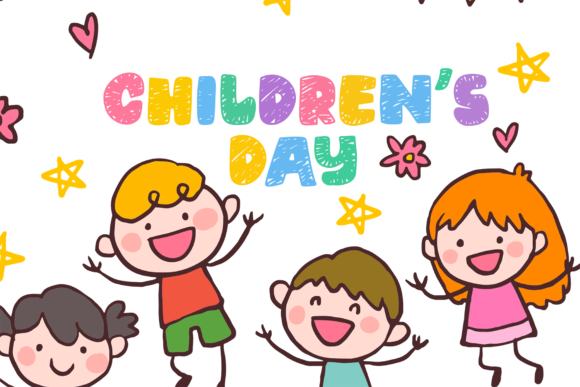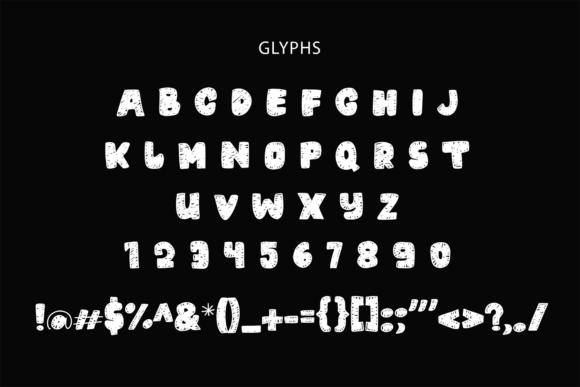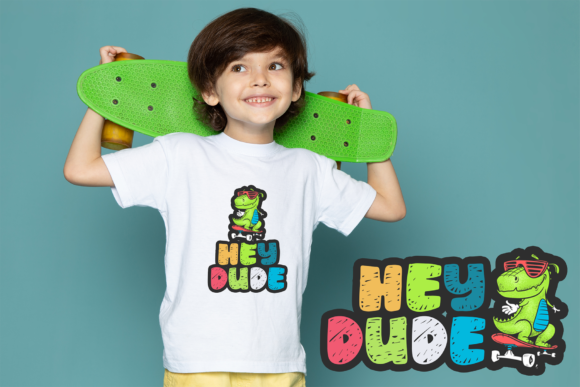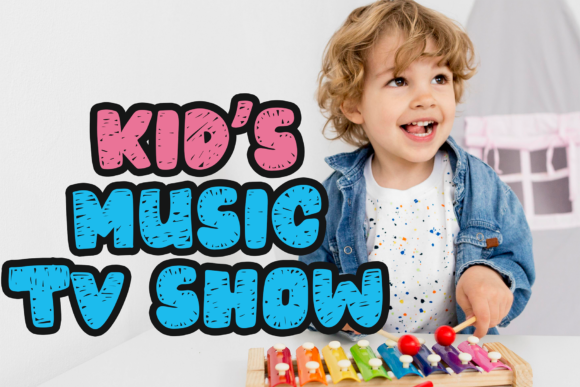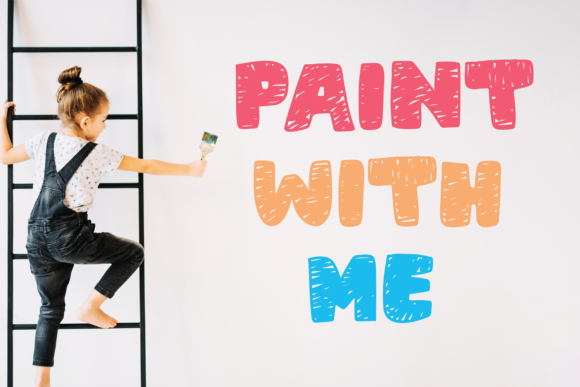
Introducing Chalk Sketch Font: A Bold and Colorful Display Font
Are you looking for a font that can add a touch of creativity and friendliness to your designs? Look no further than Chalk Sketch Font! This bold and colorful display font is perfect for designers and crafters who want to make their ideas stand out. In this article, we’ll explore the features and benefits of Chalk Sketch Font, and how it can be used in a variety of contexts.
What is Chalk Sketch Font?
Chalk Sketch Font is a unique and eye-catching display font that is designed to mimic the look of chalk sketches. Its bold and colorful appearance makes it perfect for headlines, titles, and other design elements that need to grab attention. The font is incredibly versatile, and can be used in a wide range of contexts, from children’s designs to marketing materials.
Key Features of Chalk Sketch Font
- Bold and Colorful: Chalk Sketch Font is a bold and colorful display font that is sure to grab attention. Its vibrant colors and chunky lines make it perfect for designs that need to stand out.
- Friendly Feel: The font has a friendly feel that makes it perfect for designs that need to convey a sense of approachability and warmth. It’s ideal for children’s designs, educational materials, and marketing materials.
- Versatile: Chalk Sketch Font is incredibly versatile, and can be used in a wide range of contexts. It’s perfect for headlines, titles, and other design elements that need to grab attention.
Benefits of Using Chalk Sketch Font
There are many benefits to using Chalk Sketch Font in your designs. Here are just a few:
- Adds Creativity: Chalk Sketch Font adds a touch of creativity and whimsy to your designs. Its bold and colorful appearance makes it perfect for designs that need to stand out.
- Conveys Friendliness: The font’s friendly feel makes it perfect for designs that need to convey a sense of approachability and warmth.
- Easy to Read: Despite its bold and colorful appearance, Chalk Sketch Font is easy to read, even in large blocks of text.
How to Use Chalk Sketch Font
Chalk Sketch Font is easy to use, and can be incorporated into your designs in a variety of ways. Here are a few ideas:
- Headlines and Titles: Use Chalk Sketch Font for headlines and titles that need to grab attention. Its bold and colorful appearance makes it perfect for designs that need to stand out.
- Children’s Designs: The font’s friendly feel makes it perfect for children’s designs, such as posters, flyers, and educational materials.
- Marketing Materials: Chalk Sketch Font is also perfect for marketing materials, such as brochures, flyers, and social media graphics.
Tips and Tricks for Using Chalk Sketch Font
Here are a few tips and tricks for using Chalk Sketch Font in your designs:
- Experiment with Colors: Chalk Sketch Font comes in a range of colors, so don’t be afraid to experiment and find the perfect color for your design.
- Use it Sparingly: While Chalk Sketch Font is bold and colorful, it can be overwhelming if used too much. Use it sparingly to add a touch of creativity and friendliness to your designs.
- Pair it with Other Fonts: Chalk Sketch Font can be paired with other fonts to create a unique and eye-catching design. Try pairing it with a clean and simple font for a bold and contrasting look.
In conclusion, Chalk Sketch Font is a bold and colorful display font that is perfect for designers and crafters who want to add a touch of creativity and friendliness to their designs. Its friendly feel and versatility make it perfect for a wide range of contexts, from children’s designs to marketing materials. With its ease of use and range of features, Chalk Sketch Font is a must-have for any designer or crafter looking to take their designs to the next level.